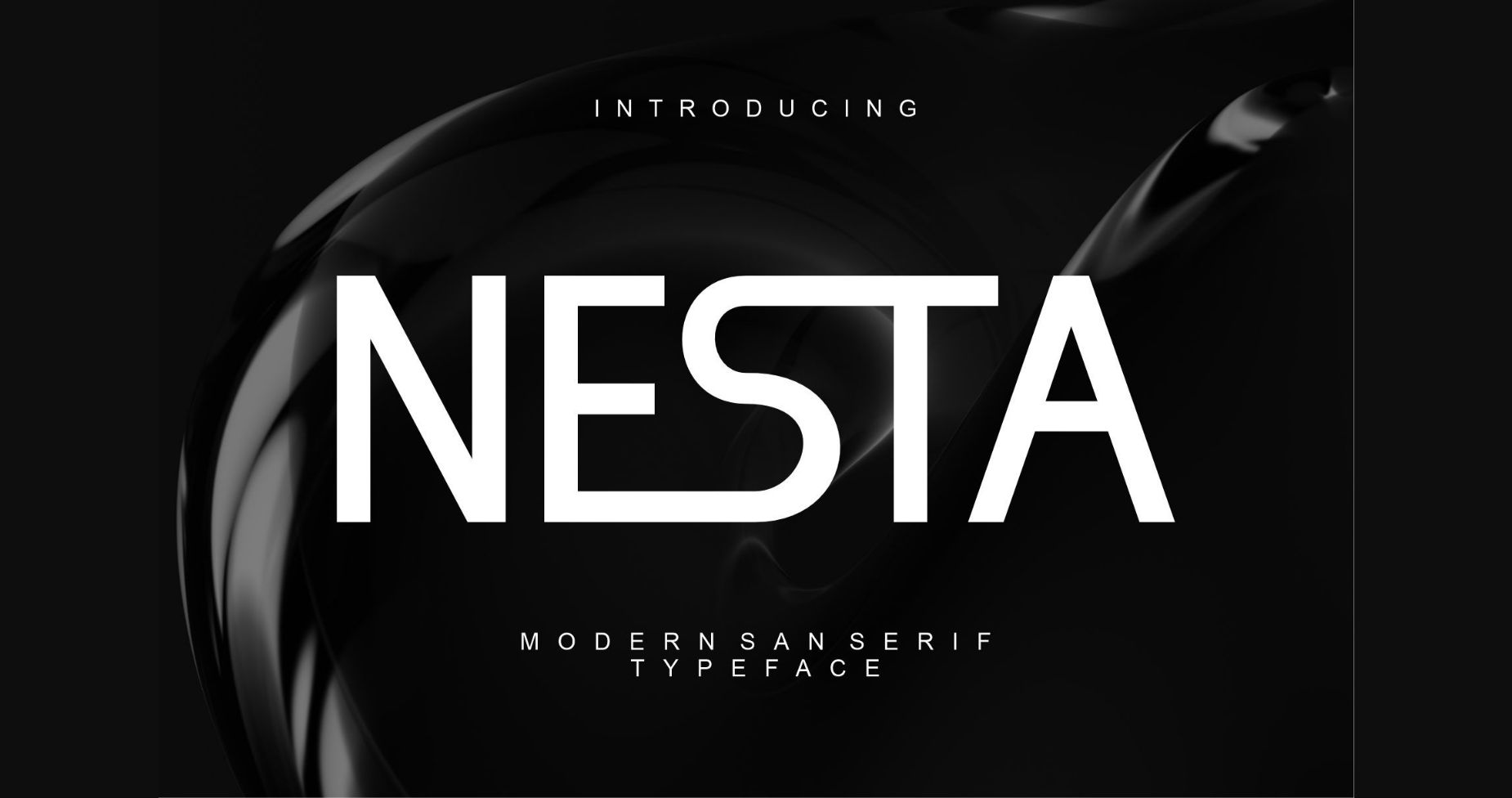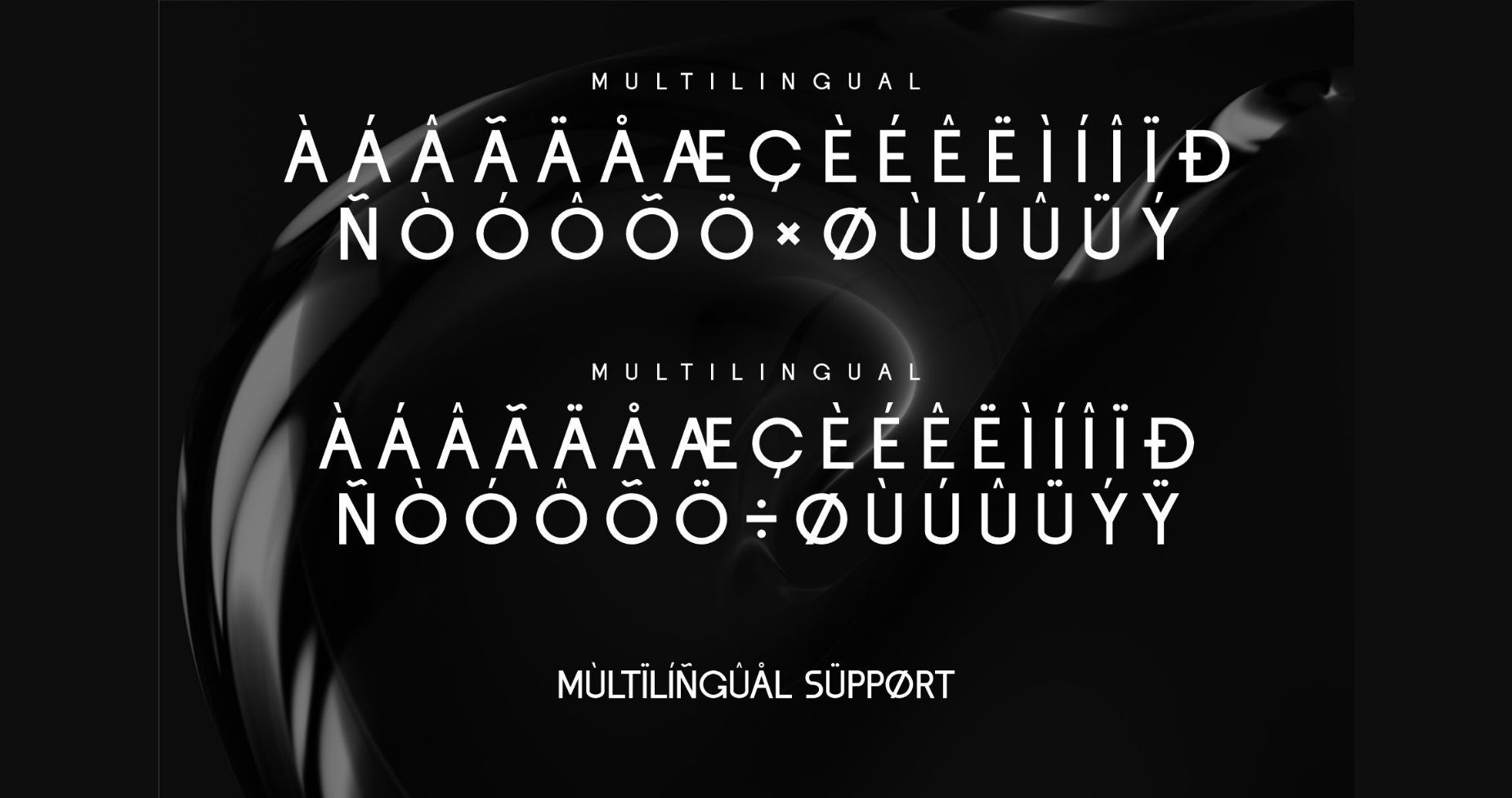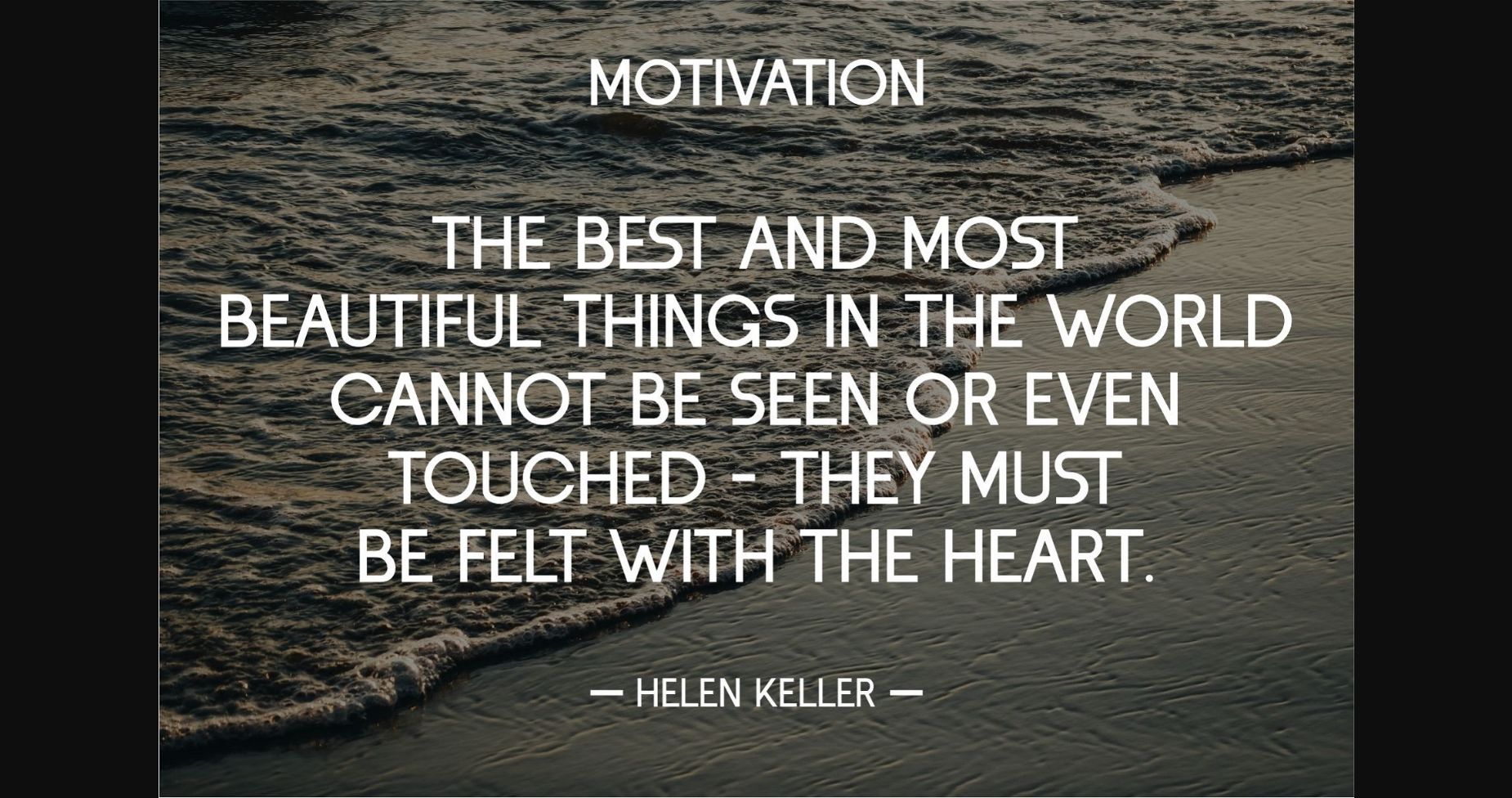
About Nesta Font
NESTA Modern Sans Serif Typeface inspired by the famous minimalist logo perfect for the purposes of designing templates, brochures, videos, advertising branding, logos, invitation, layout design, elegant crafting, beauty design, and others.